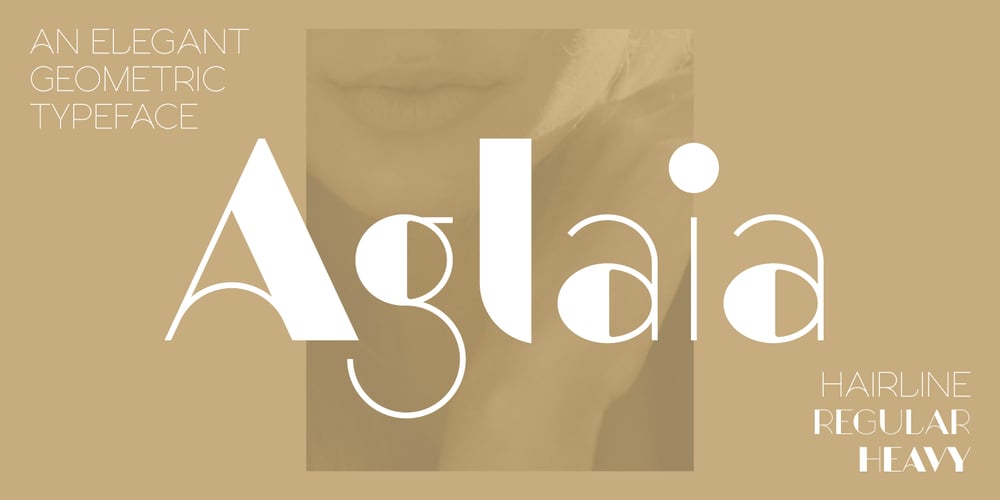
Aglaia
Aglaia font
Aglaia Font Family was designed by Gilles Verschuere and published by Wildstripe. Aglaia contains 3 styles and family package options. Aglaia is an elegant geometric sans serif typeface that comes in three weights. Designed in part inspired by Art Deco, but with a modern minimalist approach that makes it a versatile and excellent contemporary display font for titles, editorials and short texts.Font features: Uppercase & Lowercase Numerals, Punctuation & Symbols Alternates & Ligatures Multiple Languages Support (Latin characters + Diacritics) How to access Alternate Characters: The alternate characters can be accessed via the glyphs panel in your favorite software. Or with OpenType features turned on.